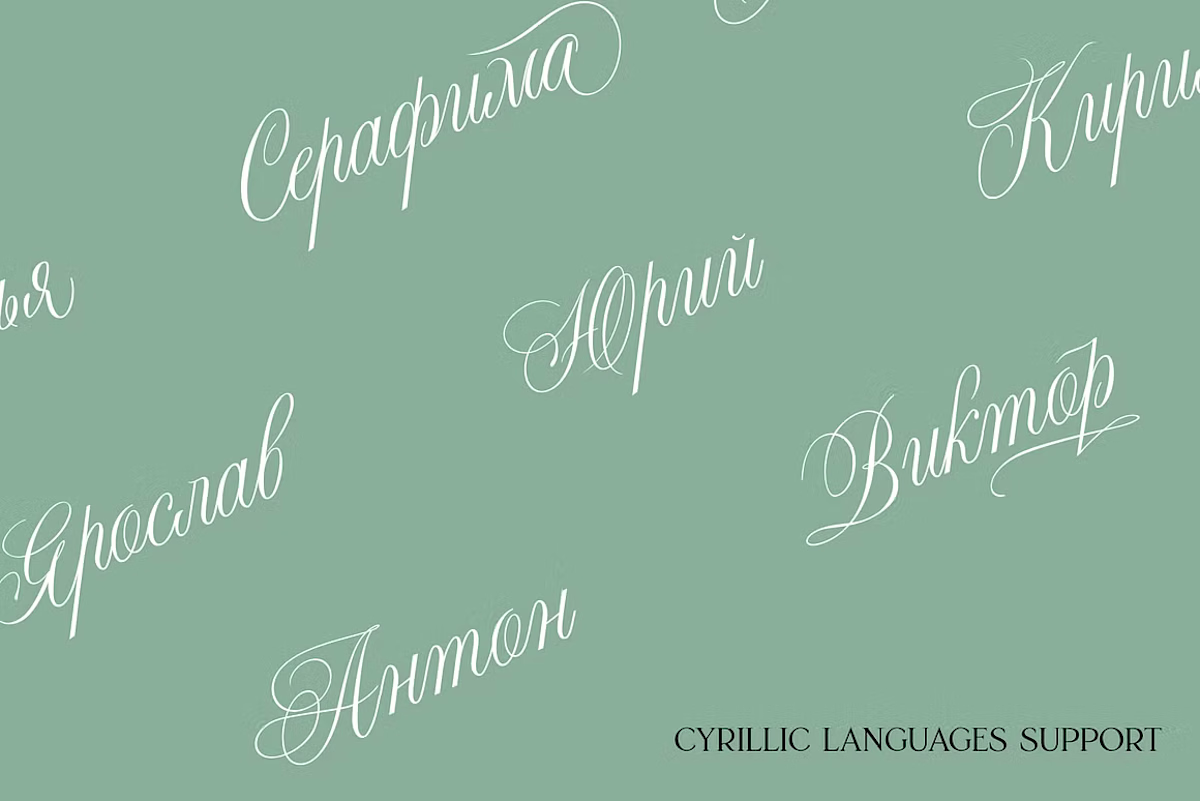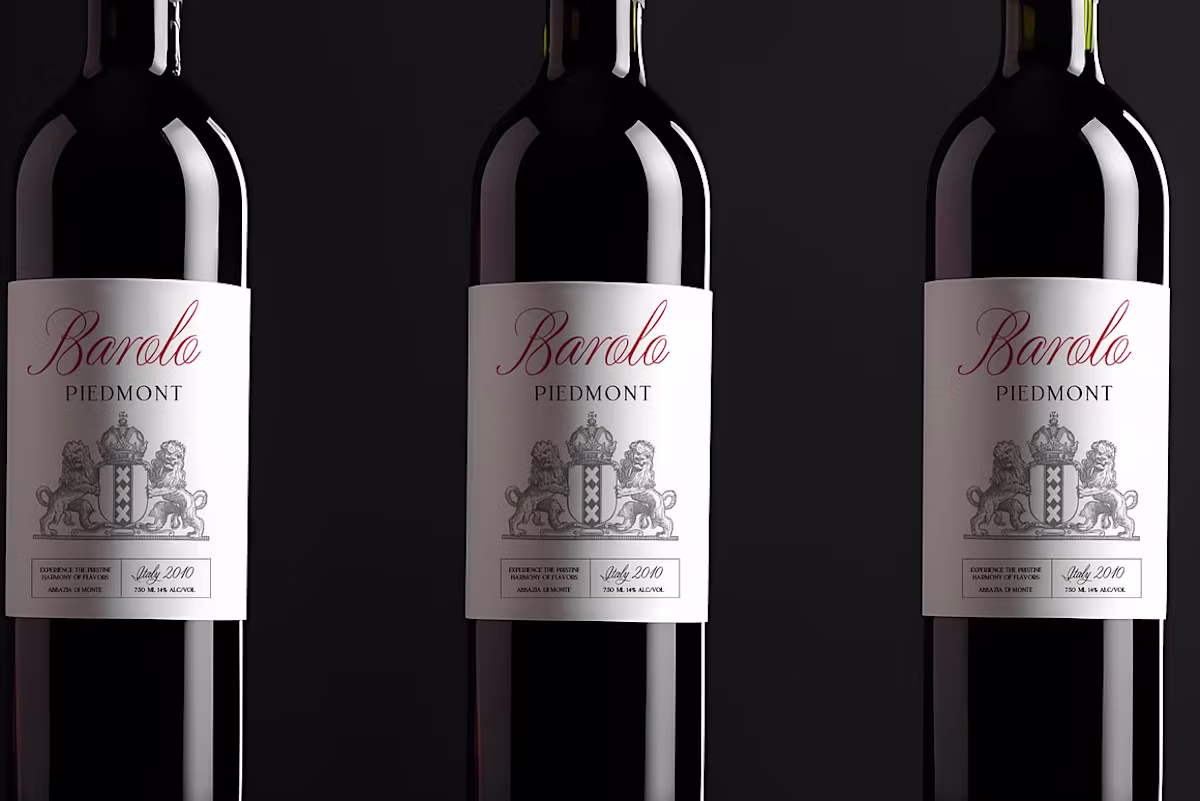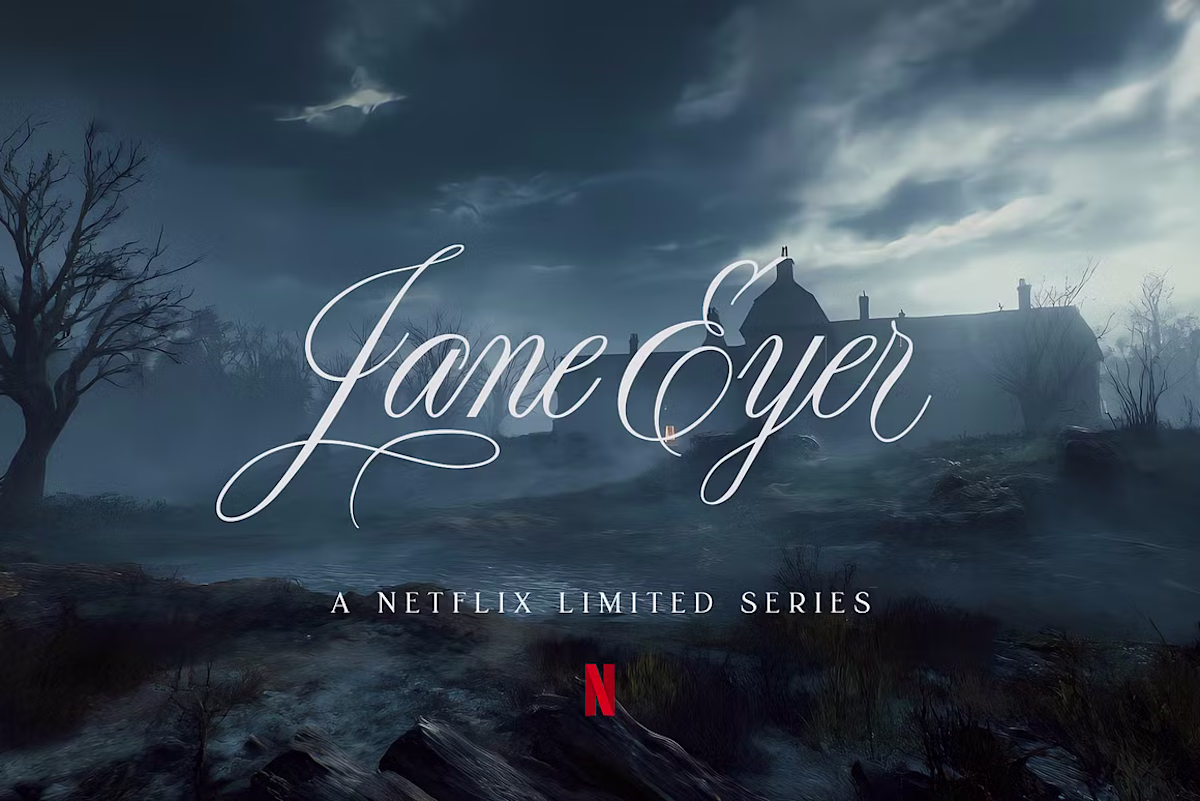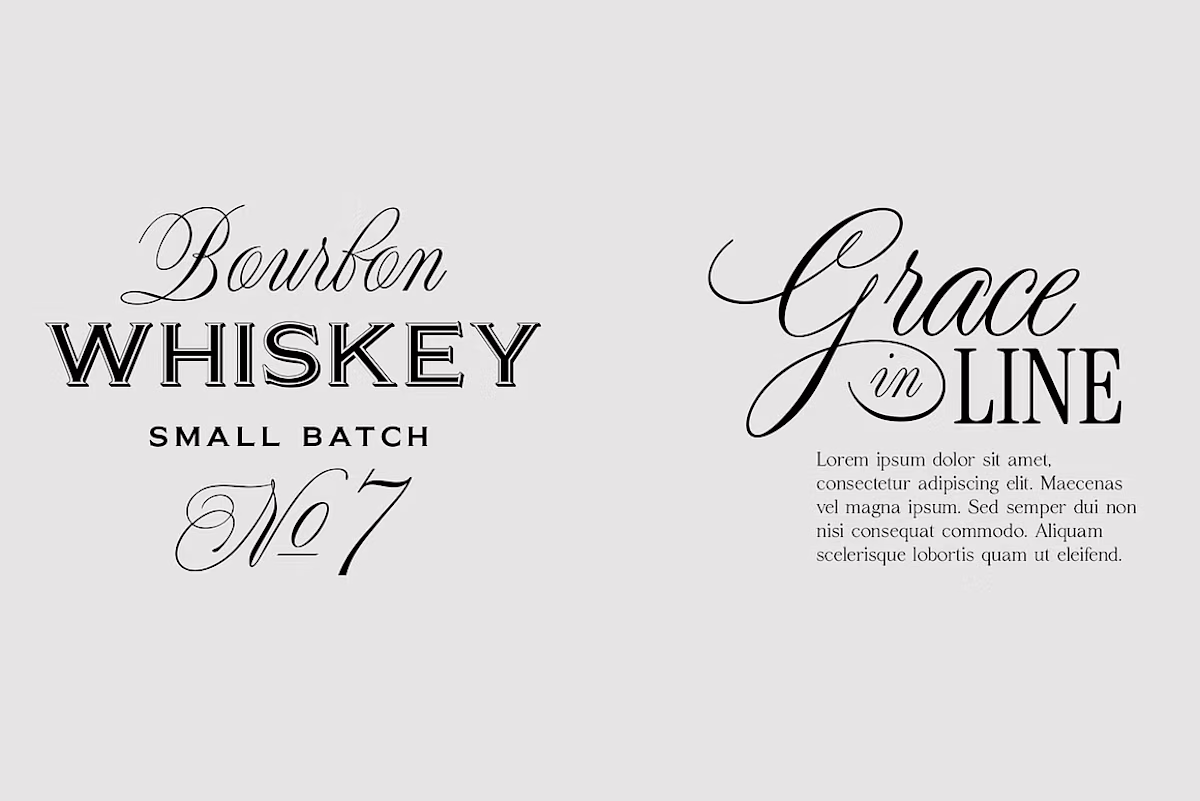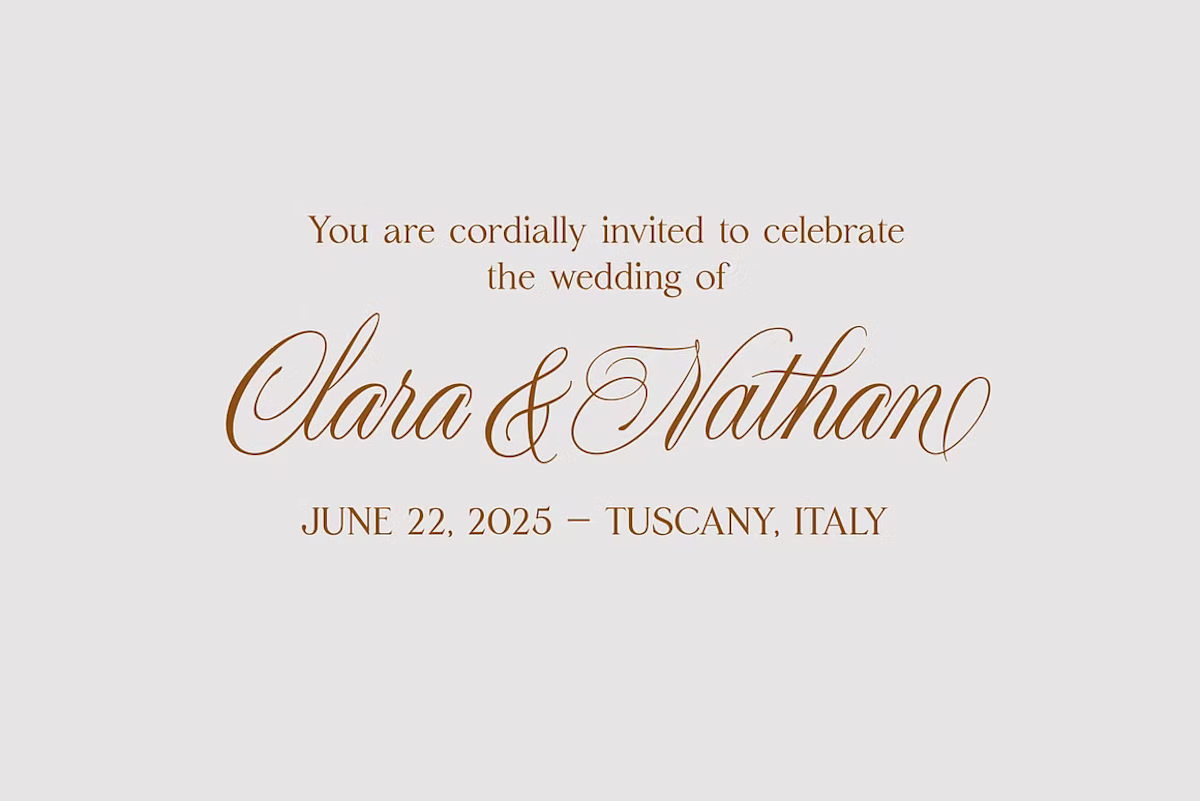
Night Train Script is an elegant calligraphy font inspired by classic pointed-pen handwriting, combining graceful rhythm with clear everyday readability.
Use it for wedding invitations, luxury branding, product packaging, logos, vintage labels, editorial headlines and photography watermarks. Latin and Cyrillic support makes it a practical choice for multilingual design.
An extensive OpenType set of stylistic alternates, contextual alternates and ligatures lets you create restrained wordmarks or expressive flourishes without redrawing letters by hand.